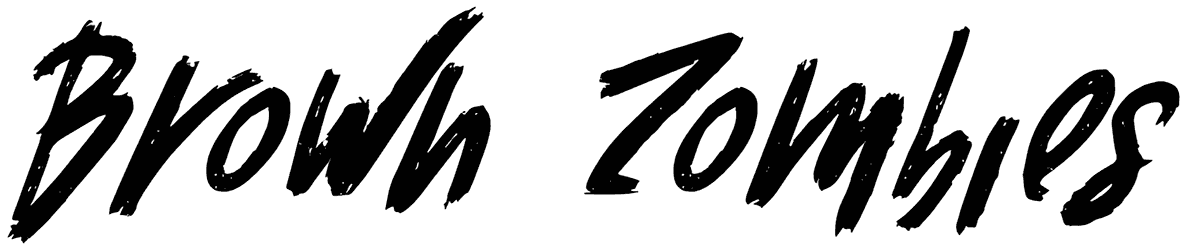
Brown Zombies Font
Designed byLeonard Posavec - LeoSupply.co
Brown Zombies is a chalk font made from handwritten letters and inspired by writing on a blackboard. This brush font never gets old and can look impressive in different designs. You can use this timeless style not only to perform school-related topics but also on the menu of cafes or introducing concerts. In fact, Brown Zombies are ideal for adding a vintage touch to any environment.
Brown Zombies
This is Handrawn Brush Font, Calligraphy style, Suitable for design, element design, wedding, event, t-shirt, logo, badges, sticker, and awesome work about summer.